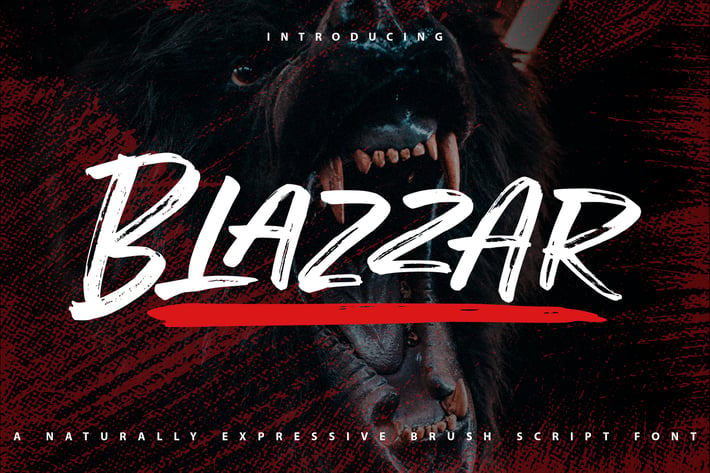
Blazzar | Expressive Brush Script Font
Blazzar | Expressive Brush Script Font with a calligraphy style, So beautiful on invitation like greeting cards, branding materials, business cards, quotes, posters, and more!